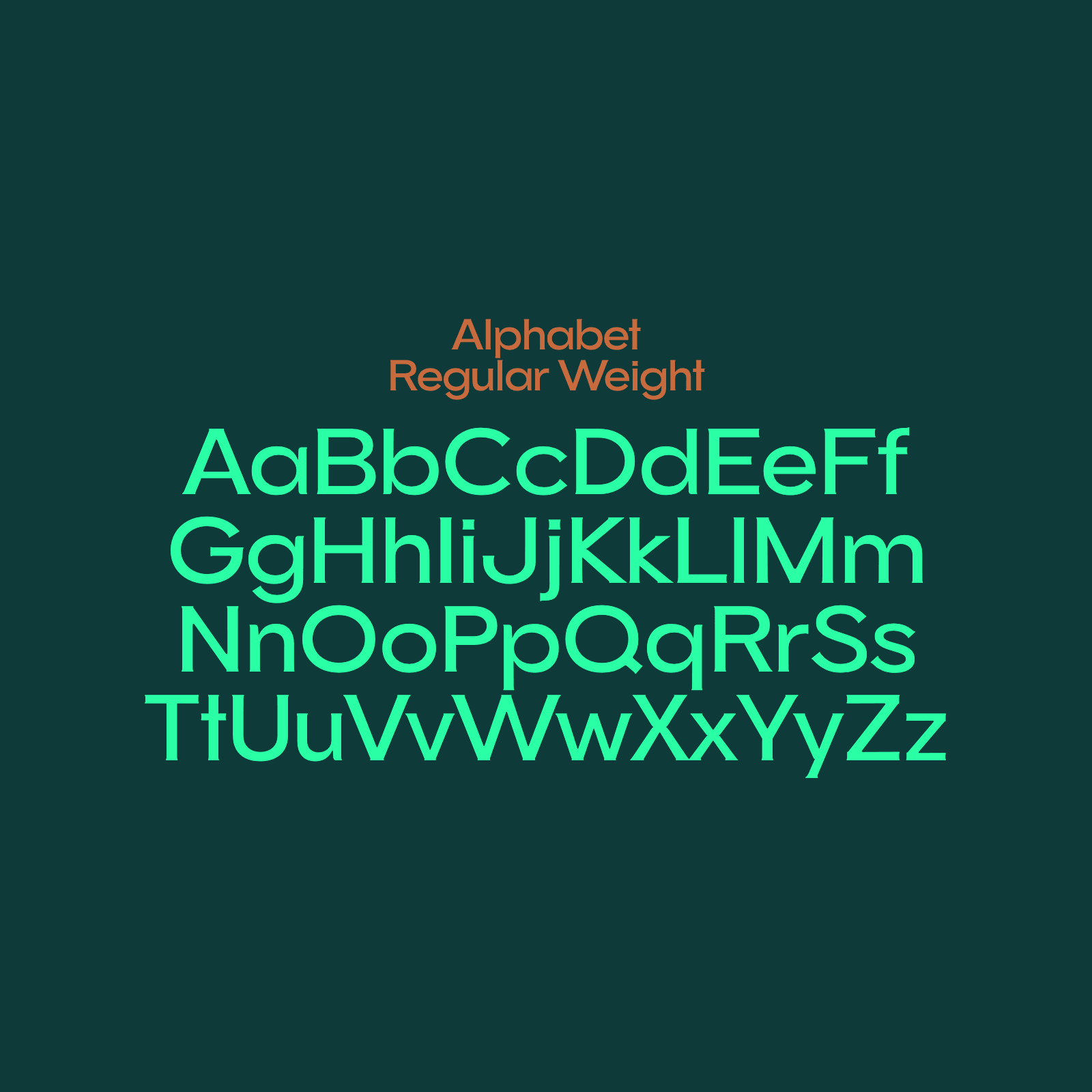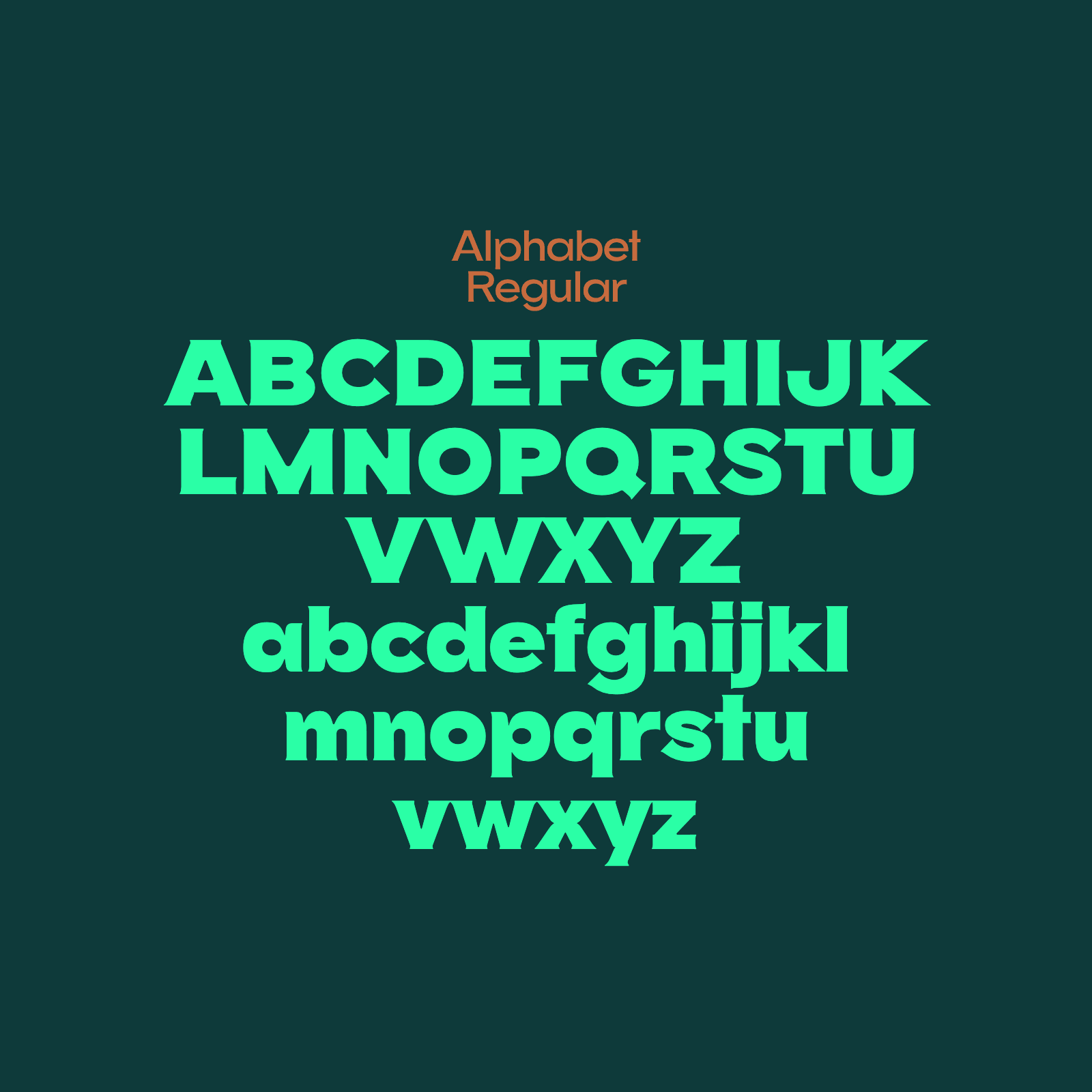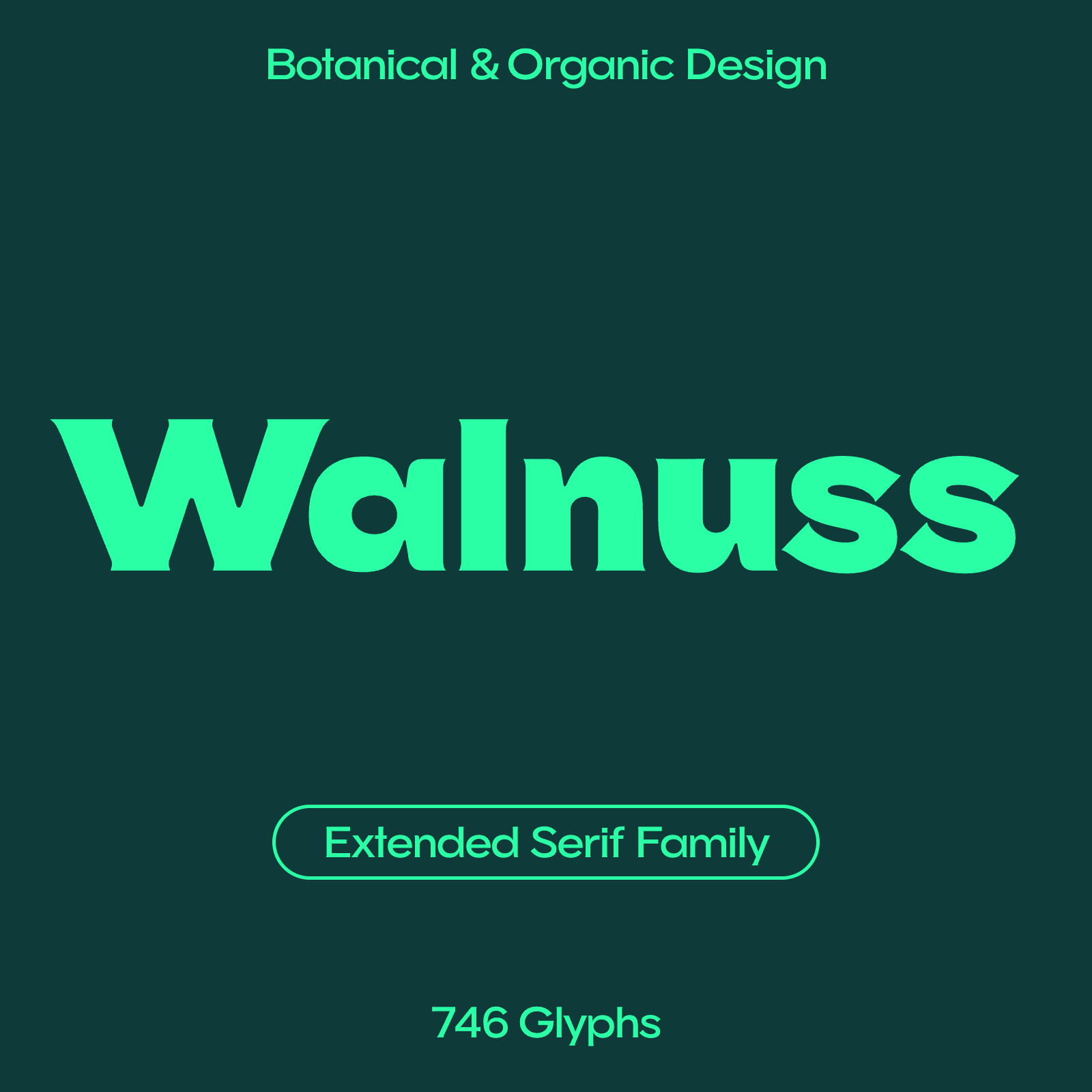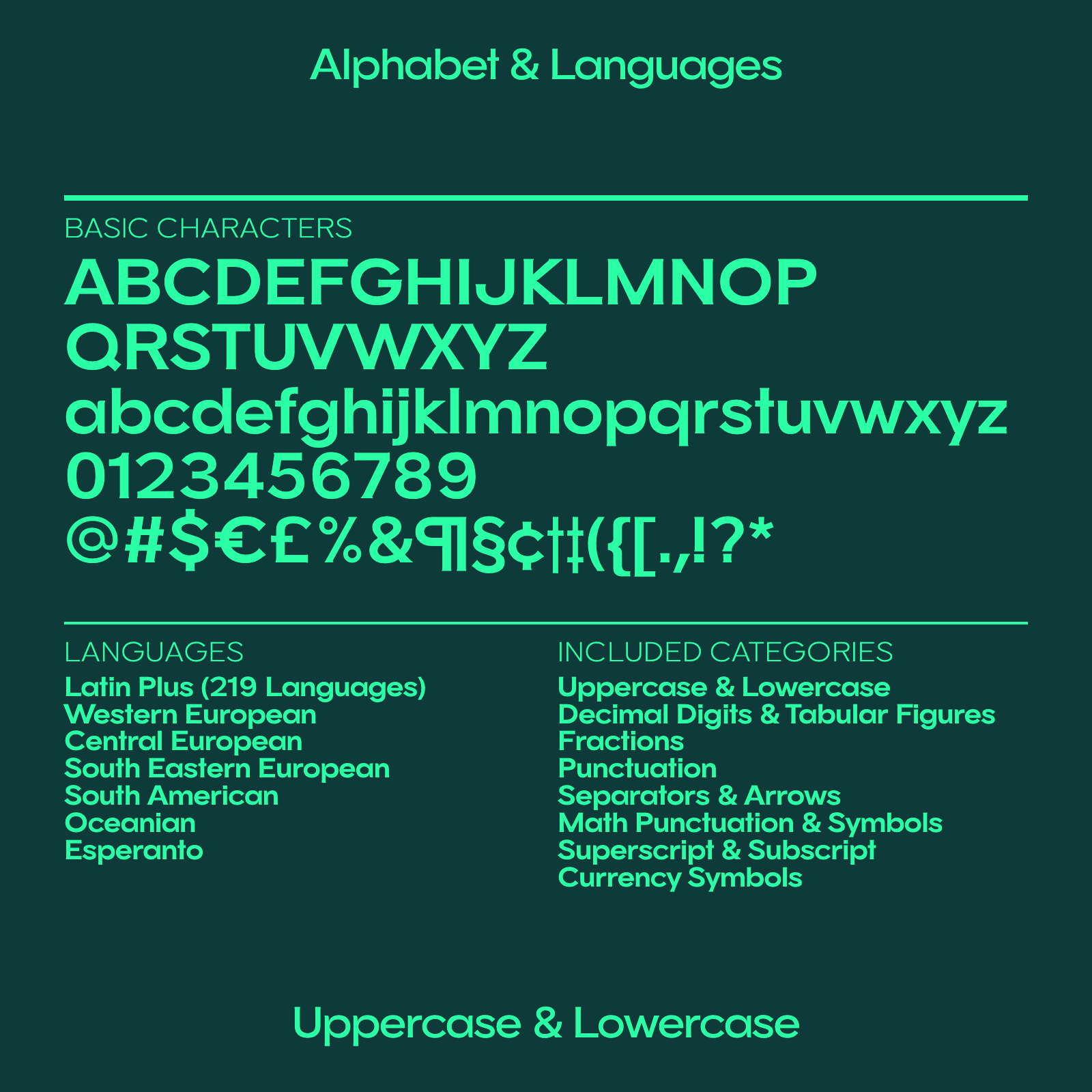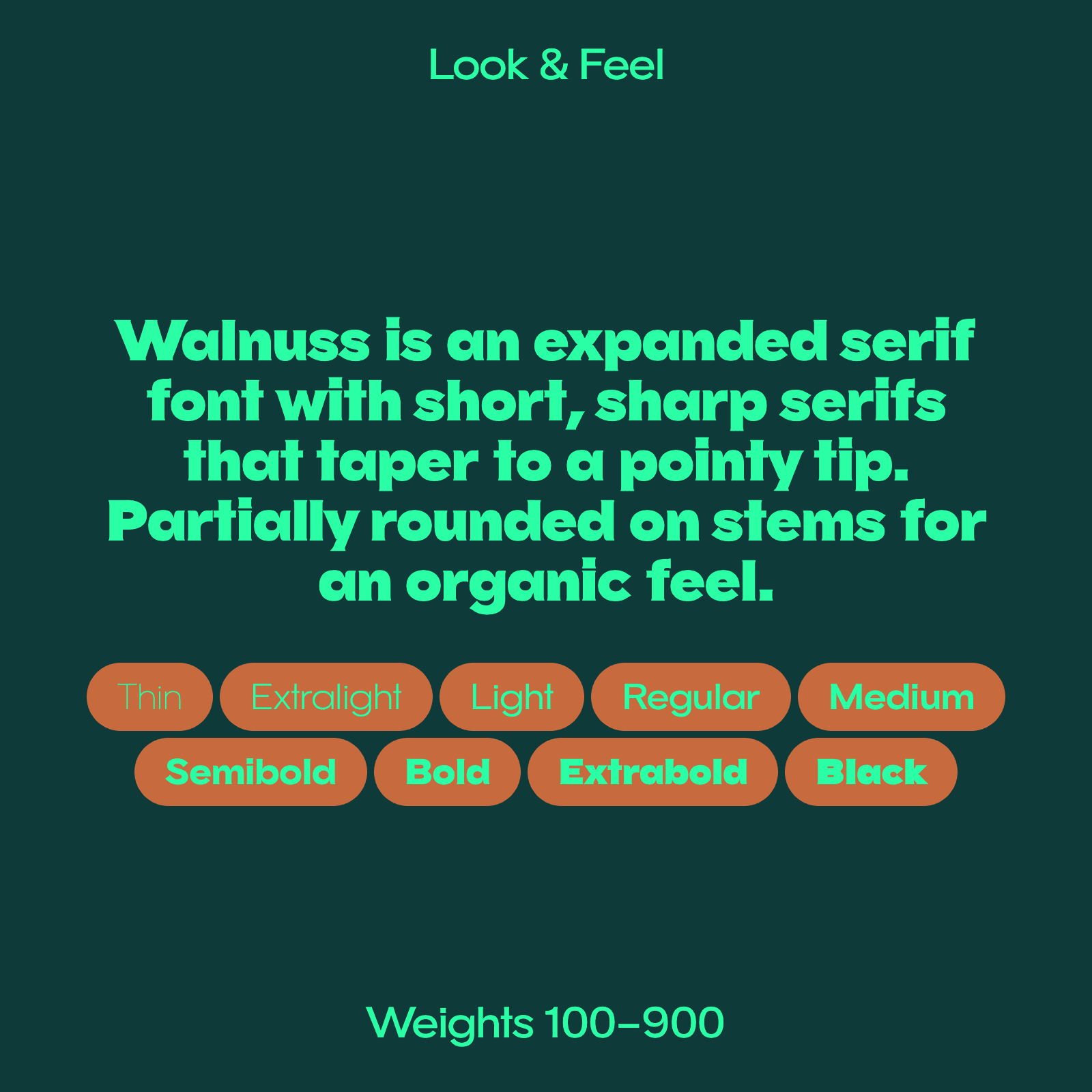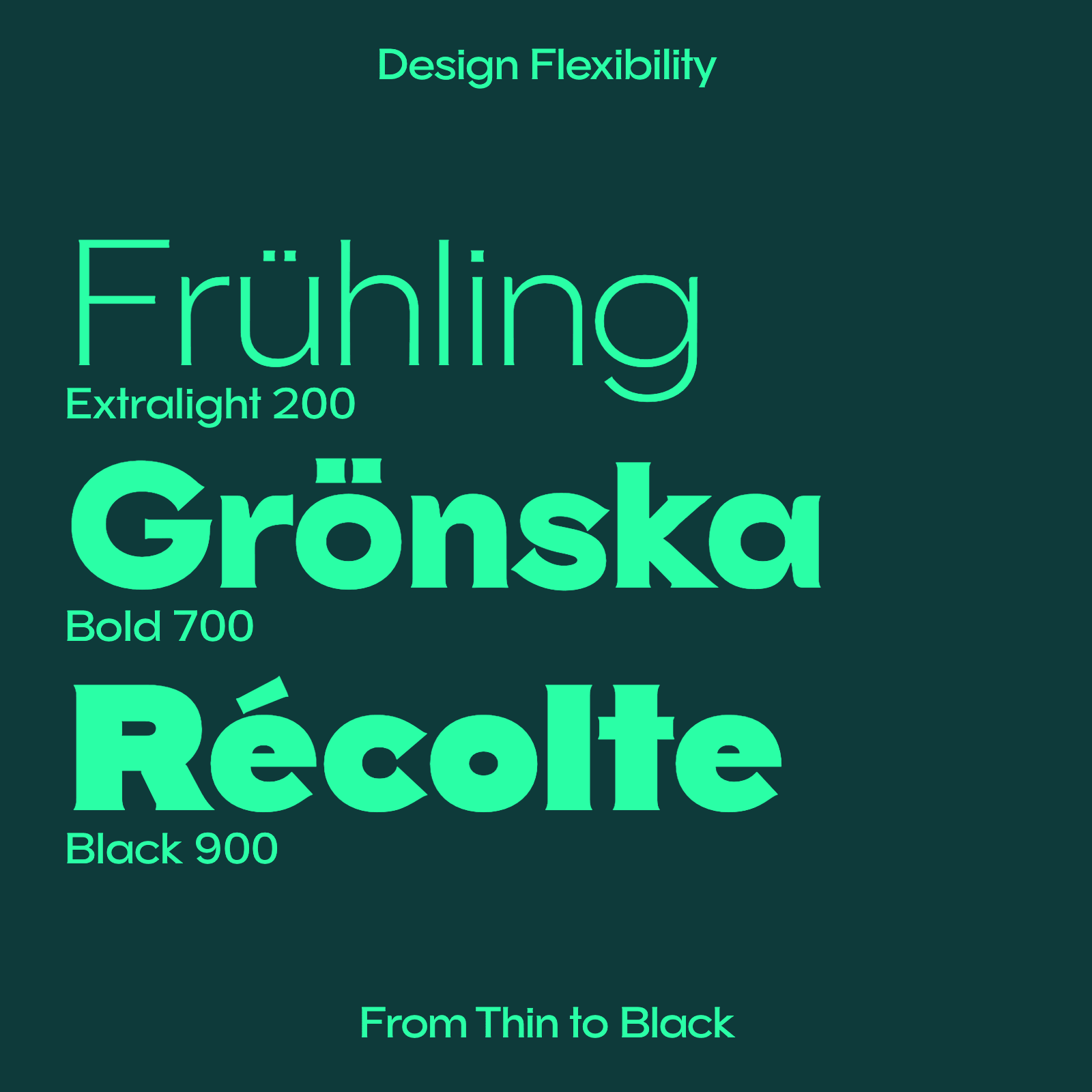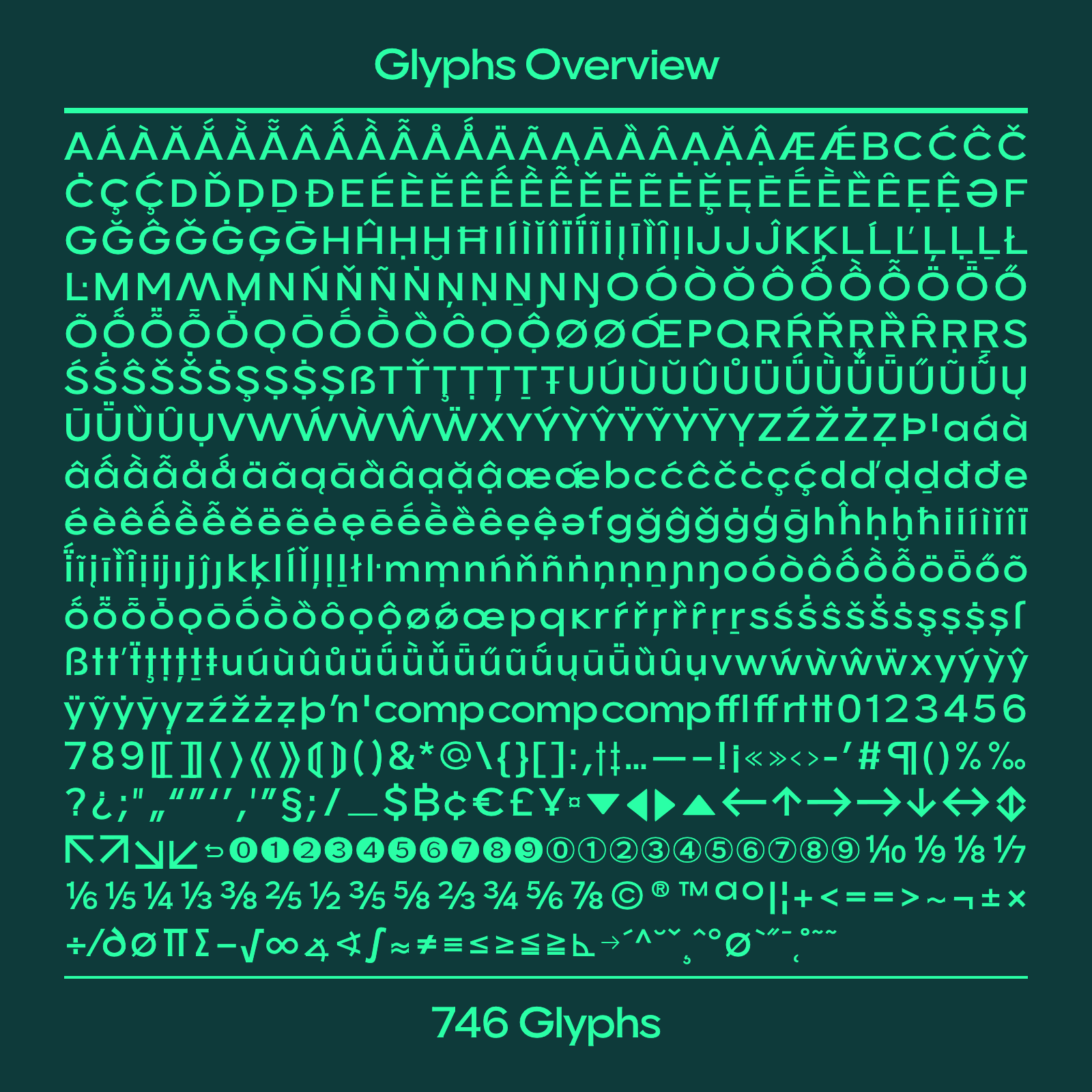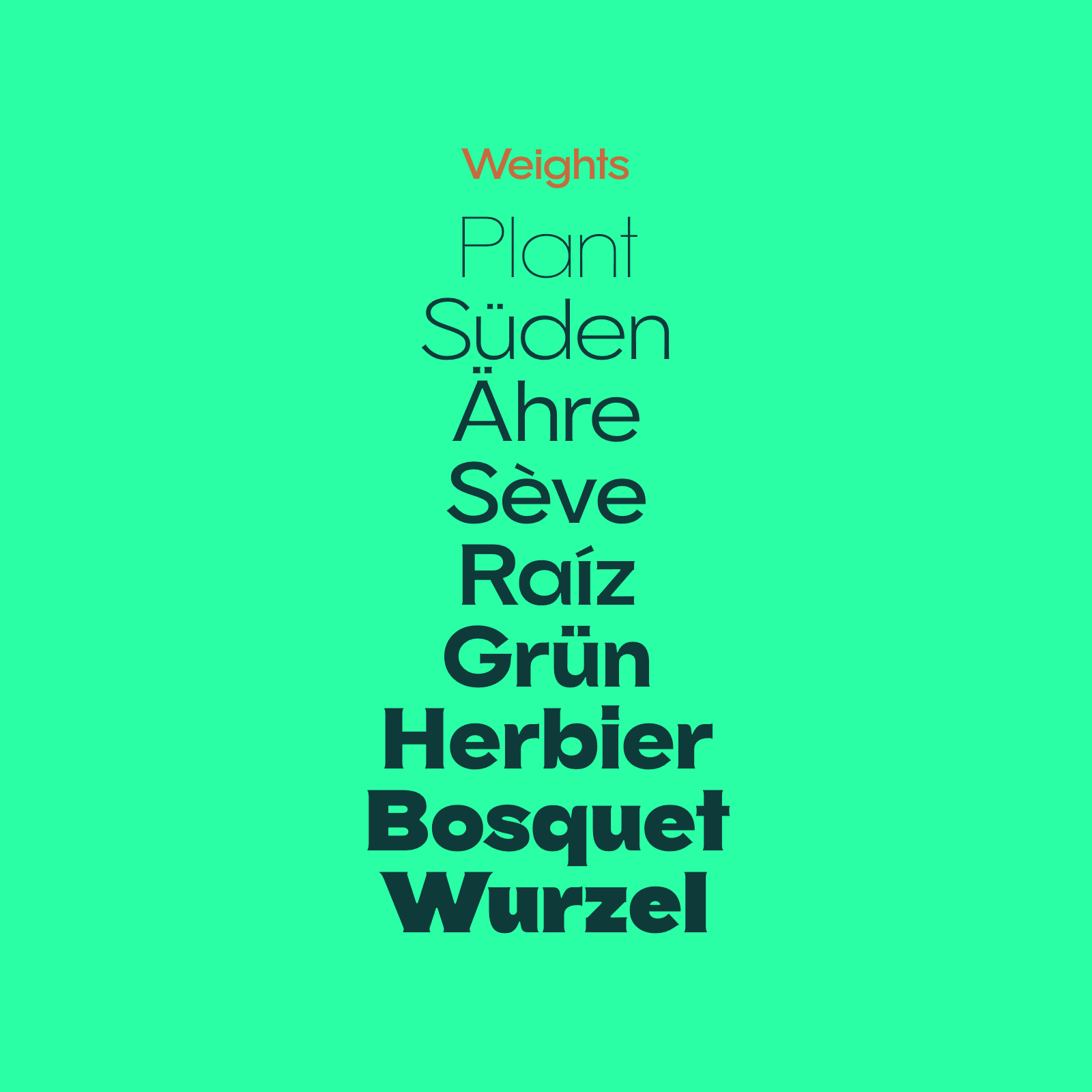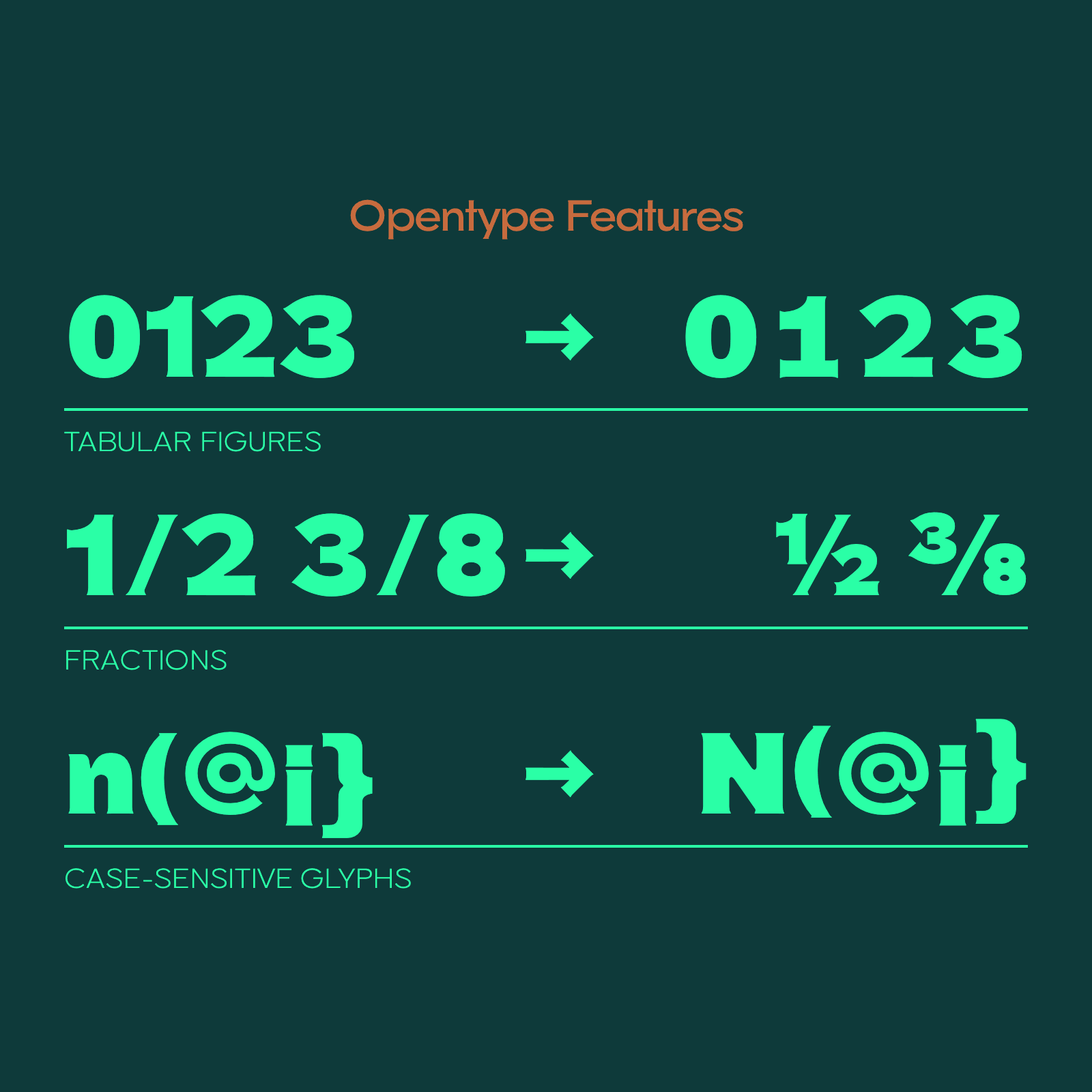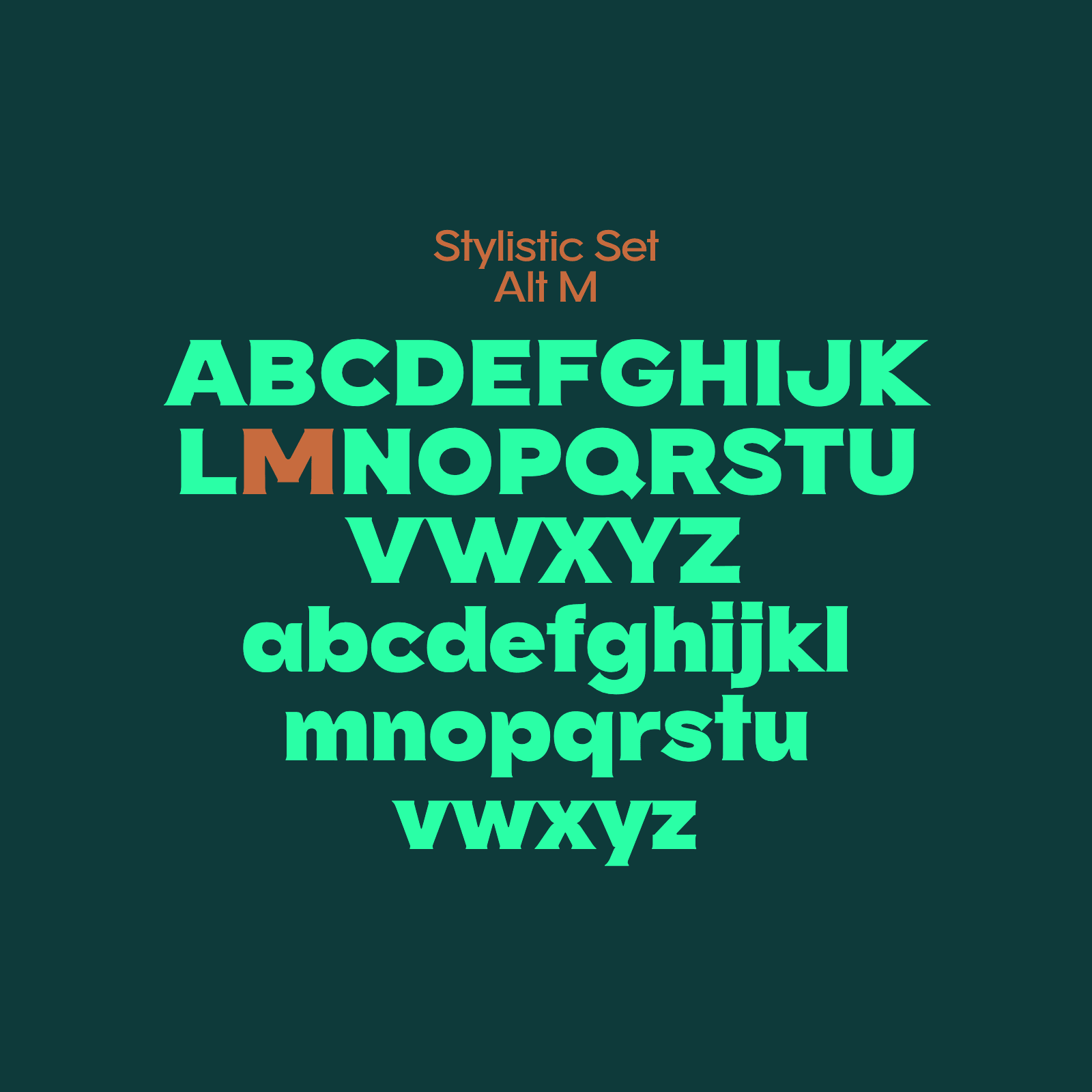
Walnuss—Expanded Serif Font, Short Serifs
About Walnuss · Expanded serif · Organic
Wide, short serifs and plant-like.
Walnuss is an expanded short organic serif. Some inner stems are rounded, which gives the font an organic, plant-like feel, across nine weights and a variable font.
Walnuss in detail
Family
9 weights, Thin to Black, plus a variable font. 753 glyphs, 2 stylistic sets.
Figures
Proportional, tabular.
OpenType
Case-sensitive punctuation, discretionary ligatures, fractions, standard ligatures, ordinals.
Ligatures
ff ffl tton by defaultrtdiscretionary, switch on in your app